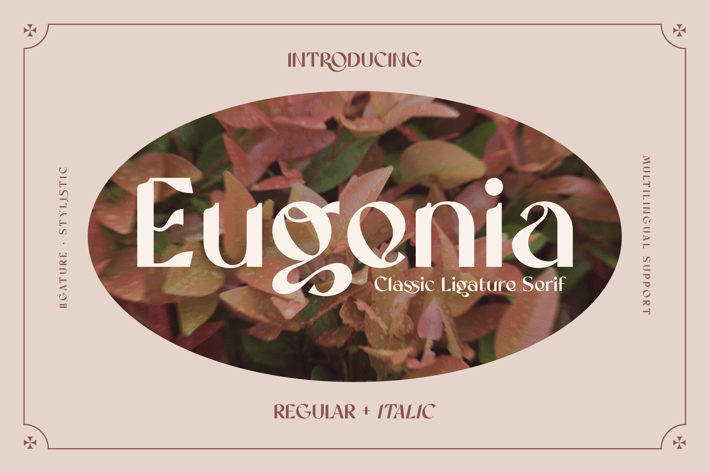
Eugenia is a classic ligature serif typeface with a collection of alternates and ligatures that will bring old-fashioned for your designs. Eugenia is perfect for vintage brands, fashion, photography, headline, books, and more.
Regular & Italic
Alternates
Ligatures
Numerals & Punctuation